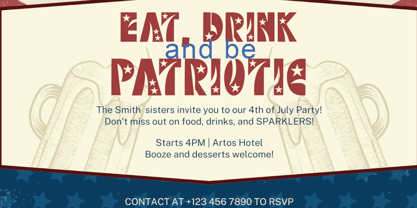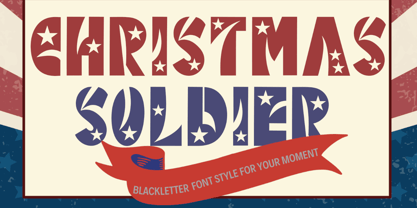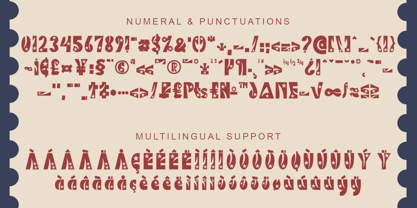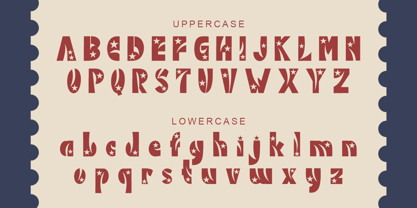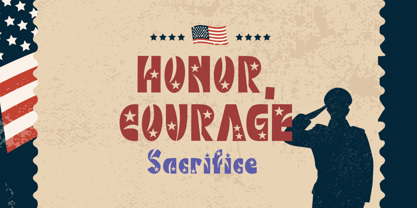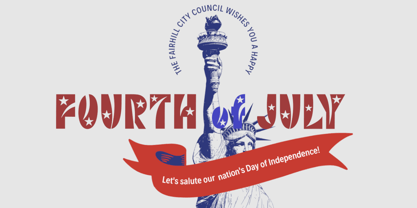
Christmas Soldier
by Yoga Letter
The Christmas Soldier Font Family was designed by Isroni Yoga Prasetya and published by Yoga Letter. Christmas Soldier contains 1 styles. More about this family
"Christmas Soldier" is a unique and elegant blackletter font with star decoration on each letter. This font is equipped with uppercase, lowercase, numeral, punctuations and multilingual support. Very suitable for 4th of July, patriotic, independent day, christmas, summer, spring, father's day and others.